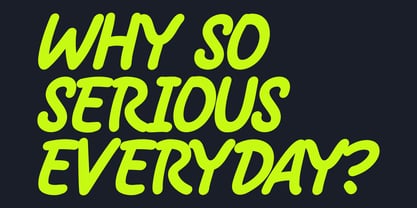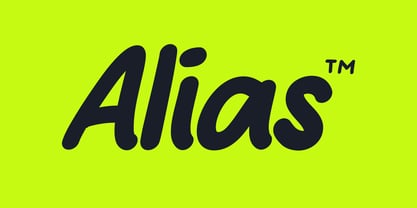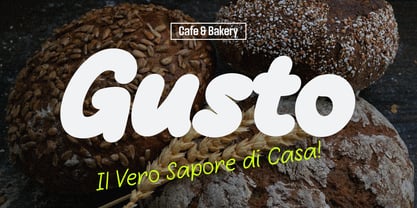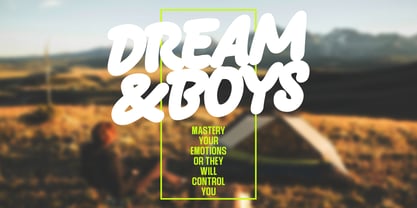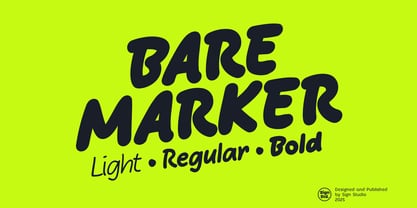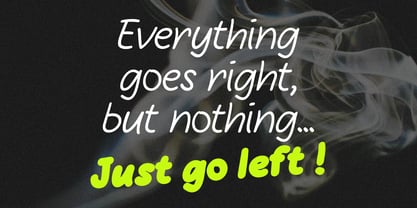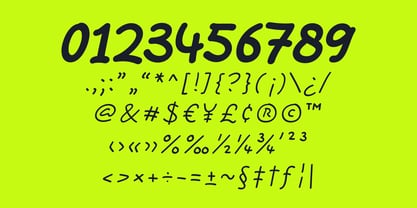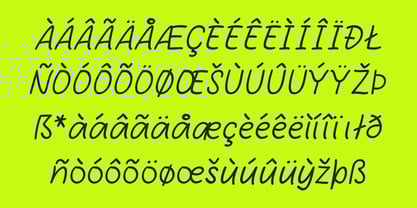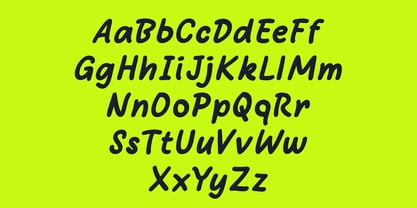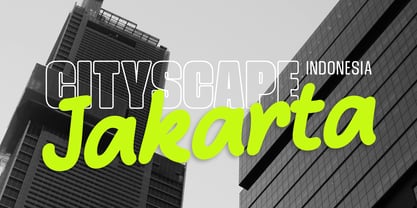
Bare Marker
by Sign Studio
The Bare Marker Font Family was designed by Sugi Yanto and published by Sign Studio. Bare Marker contains 3 styles and family package options.
Bare Marker is the perfect solution for anyone looking for a natural, handwritten style with a touch of spontaneity. It mimics the experience of writing directly on paper with a marker - complete with the subtle imperfections and charm of real handwriting. The strokes are intentionally unpolished, capturing the authentic movement of a hand in everyday writing.
Designed to reflect the fluidity and personality of real handwriting, Bare Marker feels intimate and expressive, like notes jotted down in a journal or a quick message written with warmth and familiarity.
Available in three versatile weights (Light, Regular and Bold). Bare Marker maintains excellent legibility in all styles. Whether you're using it for bold headlines, personal quotes, or body text that needs a casual yet clear look, this typeface offers a balanced, consistent design that lends itself to a wide range of creative applications. It's perfect for branding, posters, social media graphics, personal projects, or even informal invitations.
Despite its casual appearance, Bare Marker has been carefully crafted to convey both personality and legibility, making it a great choice for designers who want to add a human touch to their work.